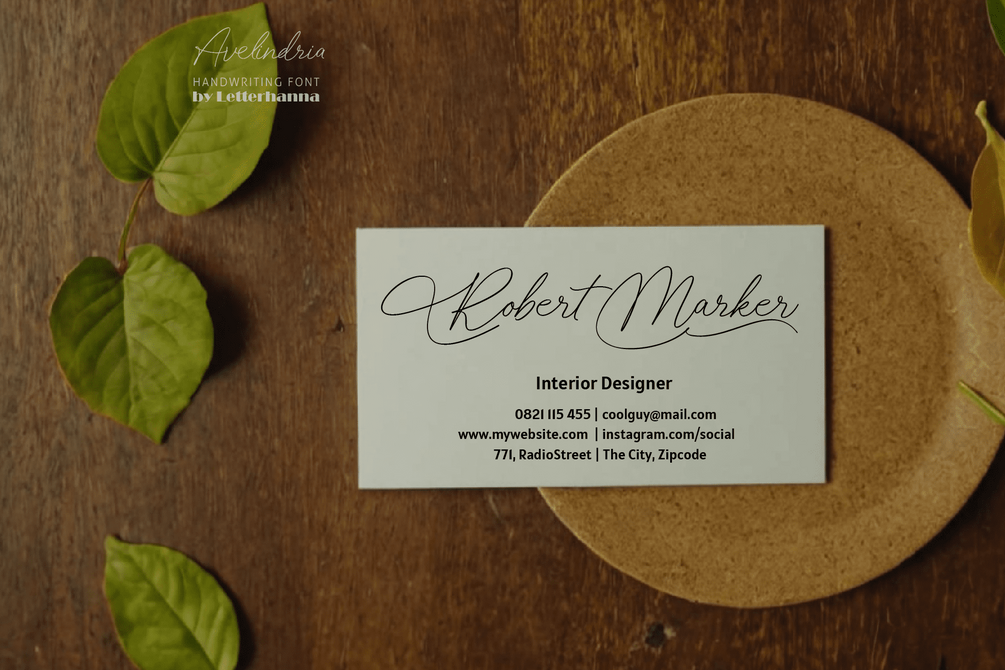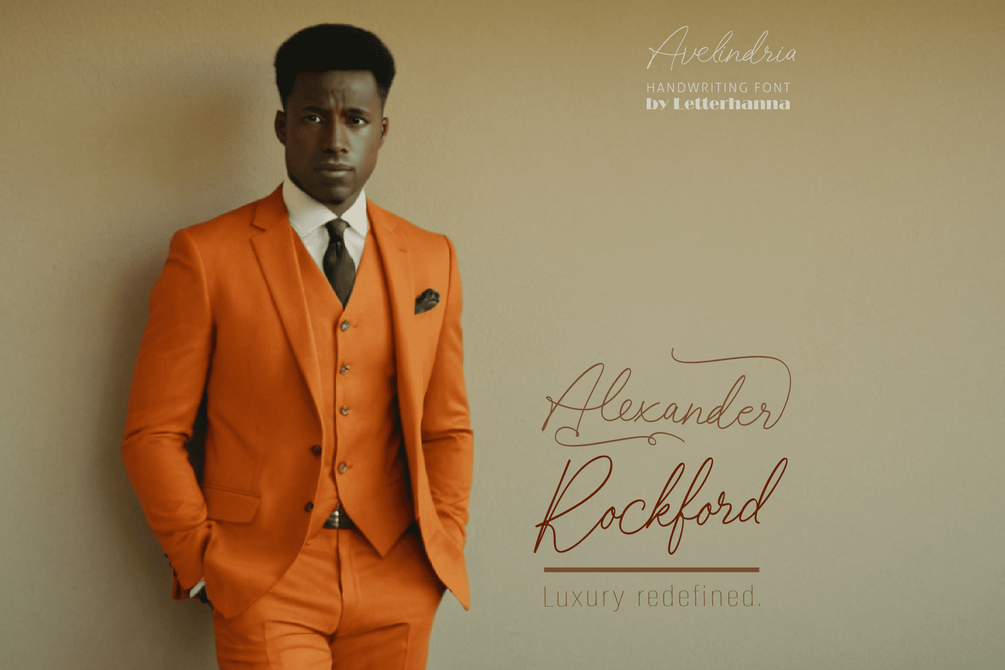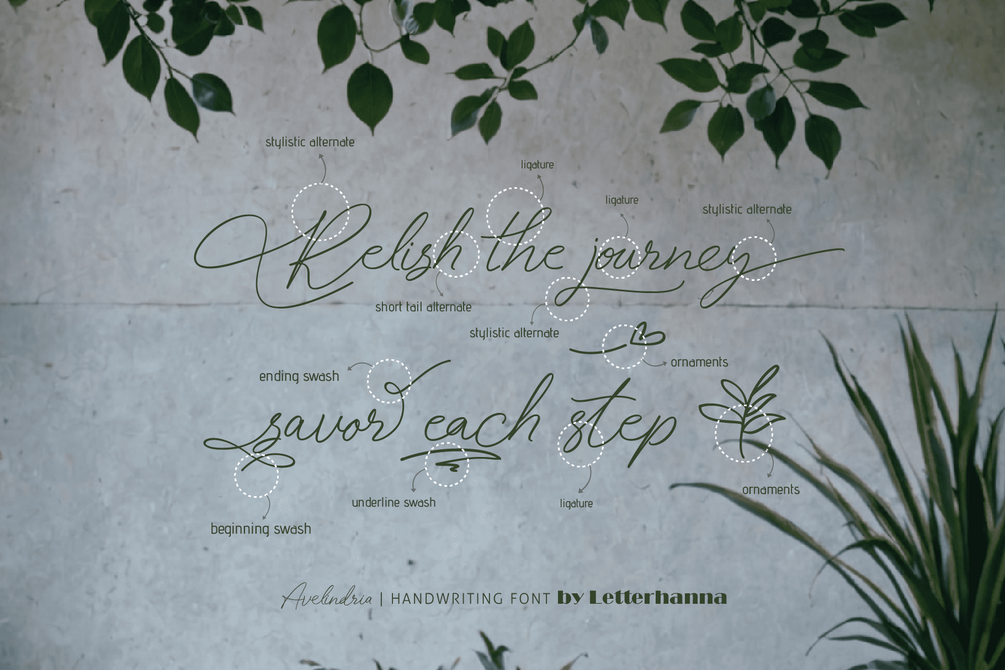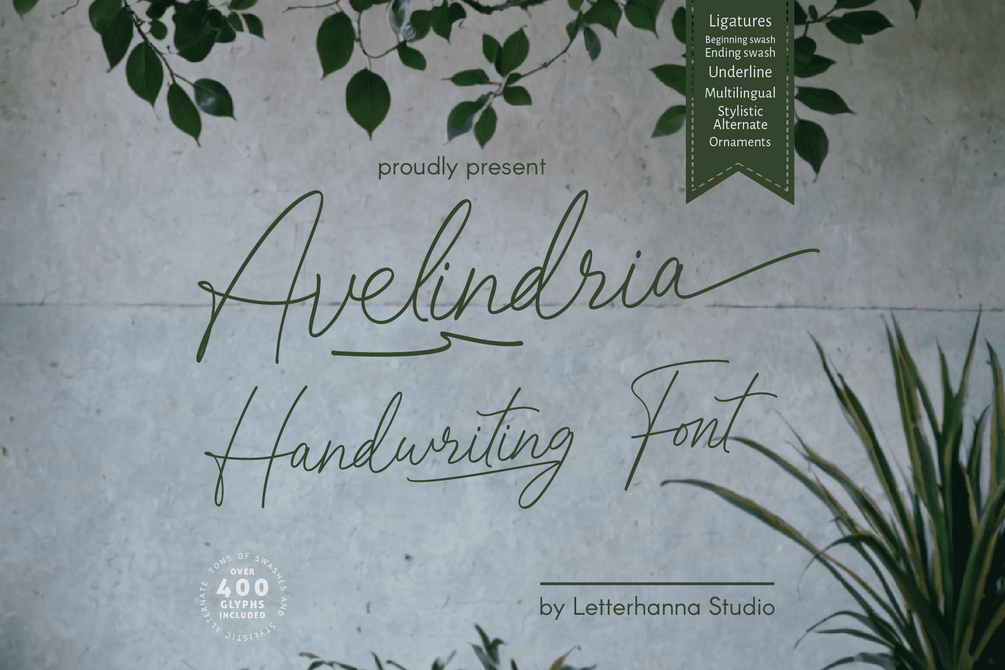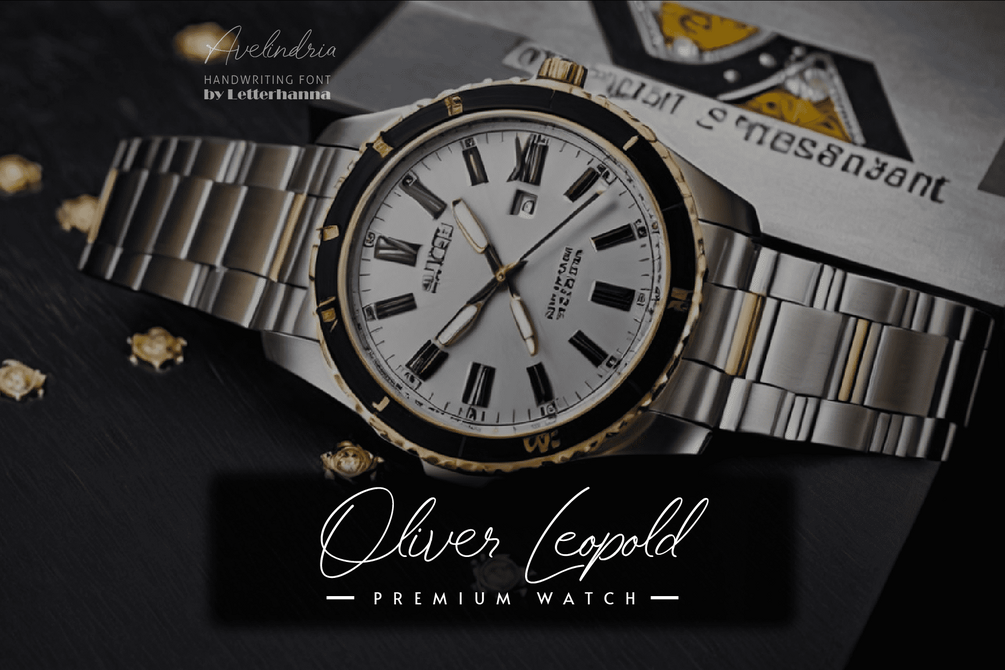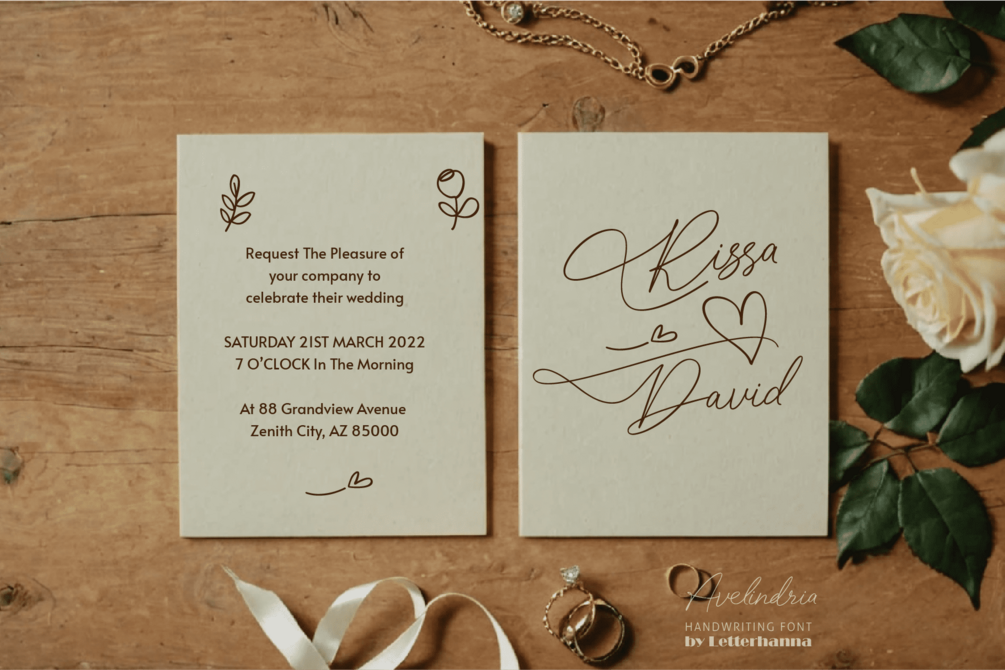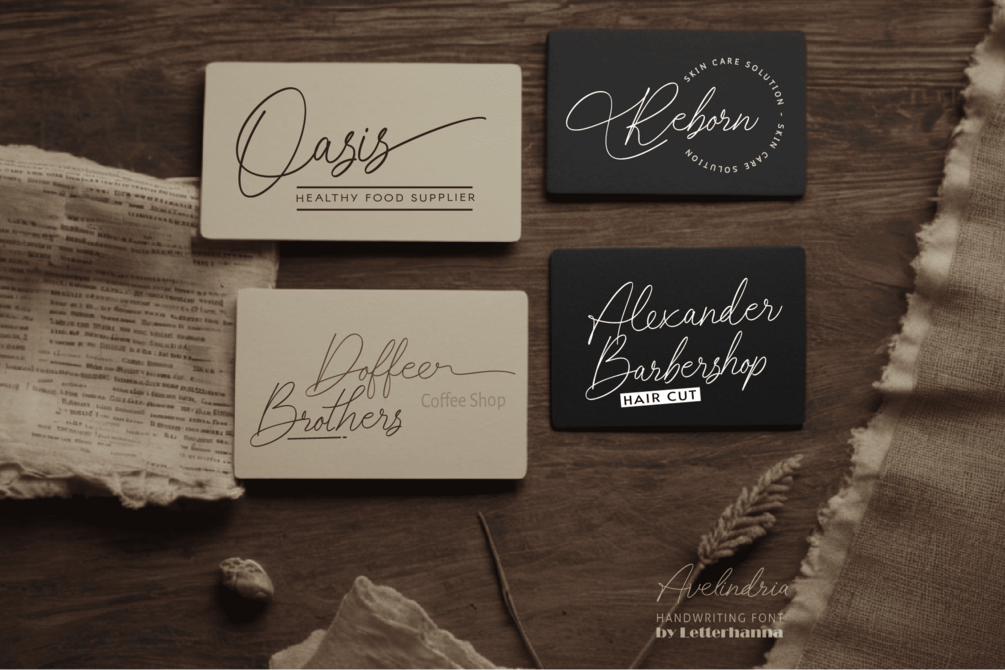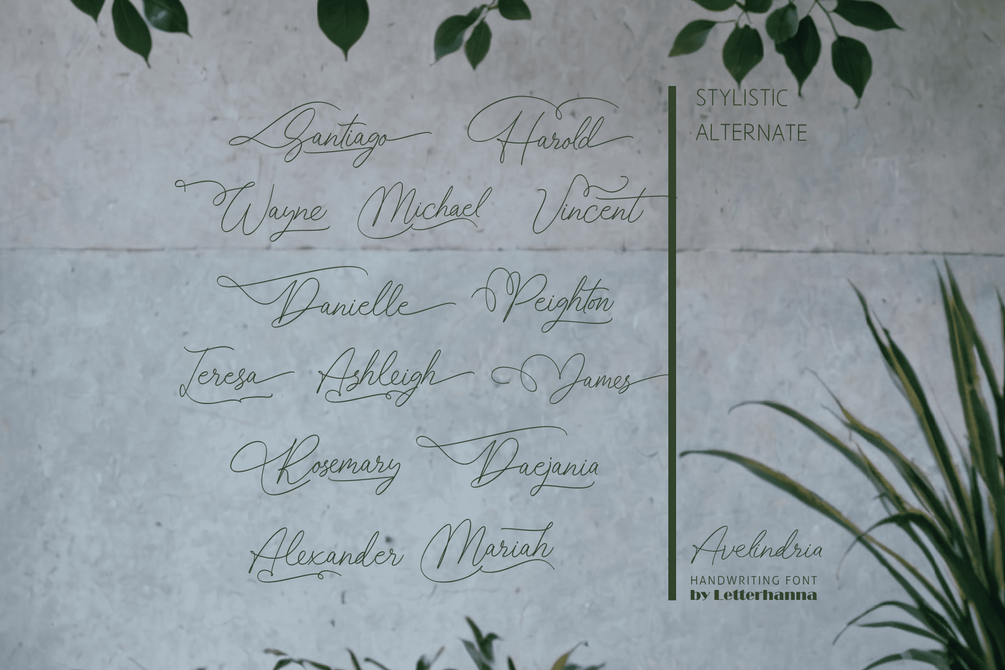
Avelindria Free Font
Introducing Avelindria, a captivating new handwriting script that embodies elegance and versatility. Designed to enthrall, Avelindria boasts a wealth of stylistic alternates, swashes, and ligatures, allowing you to craft text with unmatched personality and flair. Whether you're gracing invitations with a touch of timeless beauty or adding a flourish to logos and branding materials, Avelindria empowers you to express yourself with captivating individuality.
• Uppercase and lowercase letters
• Numbers and punctuation marks
• Multilingual support
• Ligatures
• Beginning and ending swashes
• Underline swashes
• Stylistic alternates
• Ornaments
• Easy access to swashes using ligatures